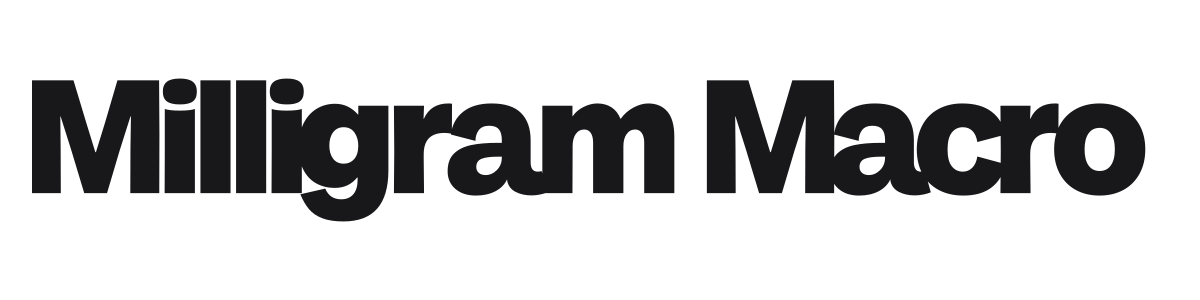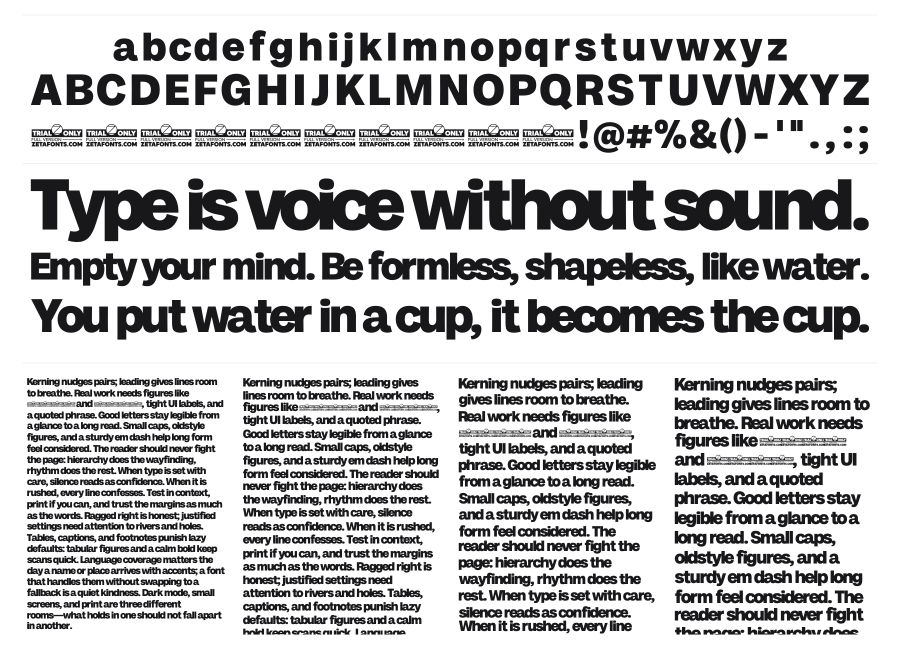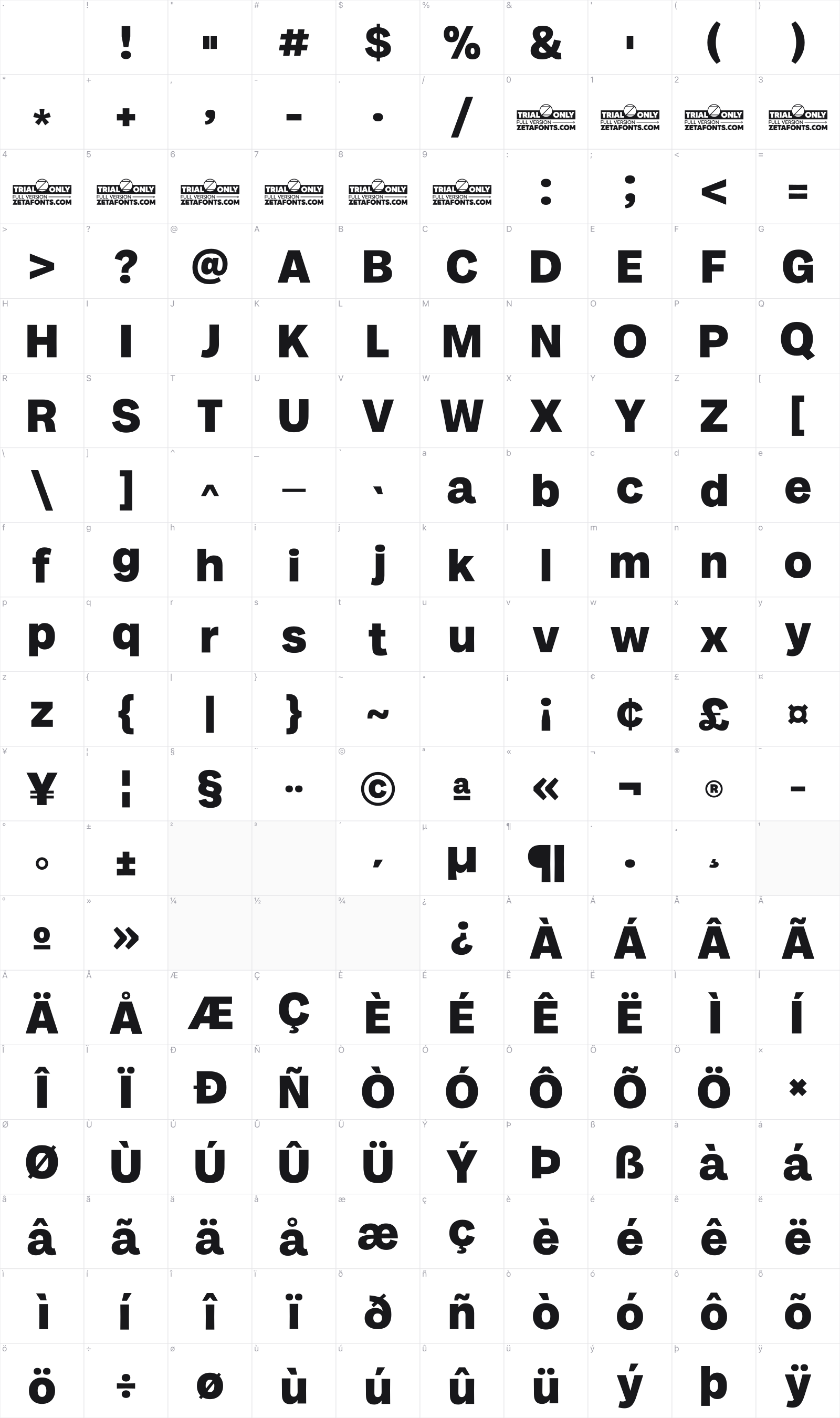
Milligram Macro
Milligram Macro is a heavy grotesque sans inspired by the Akzidenz Grotesk lineage, designed by Cosimo Lorenzo Pancini at Zetafonts. It pushes modernist precision to an extreme weight, with tightly set, wide characters that feel pulled together by their own gravity. The result sits somewhere between Swiss rationalism and the raw texture of vintage lead type.